A business card gives a font almost no room to work with — a name, a title, maybe a tagline, all set small enough to fit in a pocket. That rules out anything too delicate (fine serifs disappear at 8-9pt) or too loud (a display font meant for headlines reads as amateurish on a 3.5-inch card). These ten hold up at the size that actually matters. If you’ve been searching for free fonts for business cards, these picks are curated with exactly that in mind.
Quick Comparison
| Font | Style | Best For |
|---|---|---|
| Montserrat | Geometric sans | Safe default for any industry |
| Libre Franklin | American gothic sans | Traditional, trustworthy default |
| Barlow | Low-contrast grotesque | Modern, tech-friendly cards |
| Spectral | Screen-optimized serif | Refined, editorial feel |
| Nunito Sans | Humanist sans | Approachable but still professional |
| Cabin | Humanist sans, rounded touches | Friendly, consultant-style cards |
| Manrope | Modern geometric-ish sans | Startup and tech cards |
| EB Garamond | Classic serif revival | Law, finance, and luxury cards |
| Space Grotesk | Grotesque, quirky details | Design and creative-industry cards |
| Mulish | Minimalist low-contrast sans | Clean, minimal cards |
Montserrat
Julieta Ulanovsky drew Montserrat from the geometric lettering on old signs in Buenos Aires’ Montserrat neighborhood, and it’s become one of the most reliable all-purpose sans-serifs on Google Fonts — clean enough for a law firm, contemporary enough for a startup.
Libre Franklin
Based on Morris Fuller Benton’s Franklin Gothic from 1902, Libre Franklin keeps that typeface’s sturdy, no-nonsense character while adding a much wider weight range — useful for separating a name (bold) from a title (regular) on the same card.
Barlow
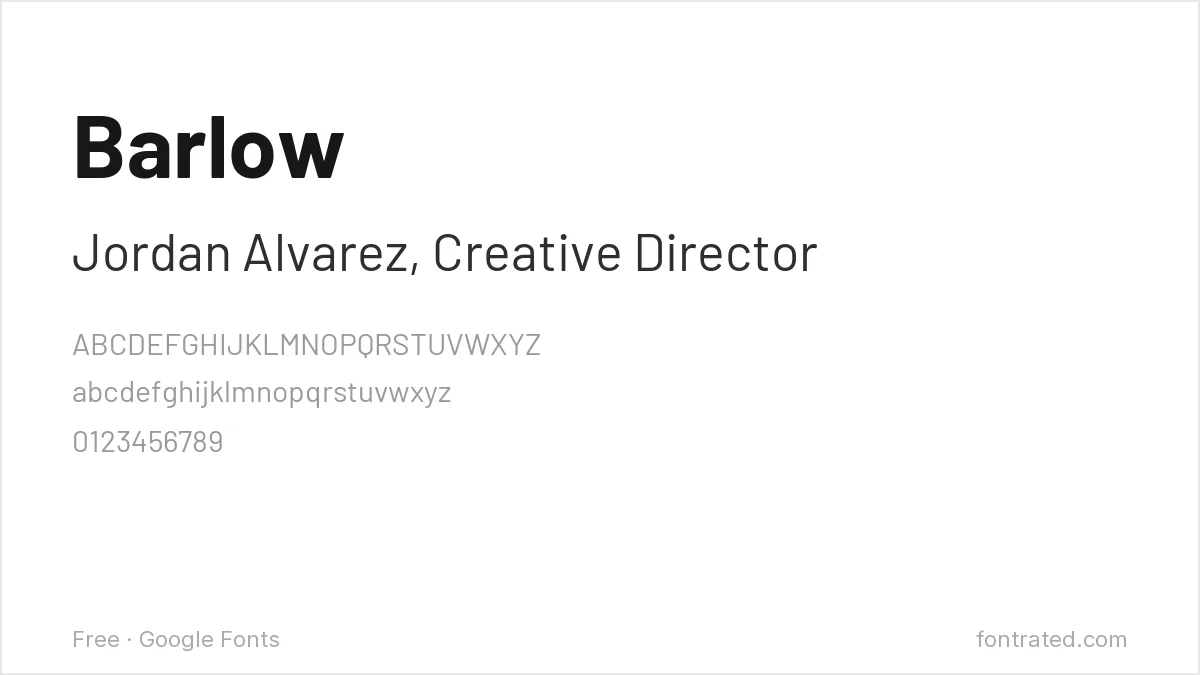
Drawn with the slightly rounded corners and low contrast common to California car-culture signage, Barlow reads as current without any of the quirks that date a typeface — a solid pick for tech and product-focused cards.
Spectral
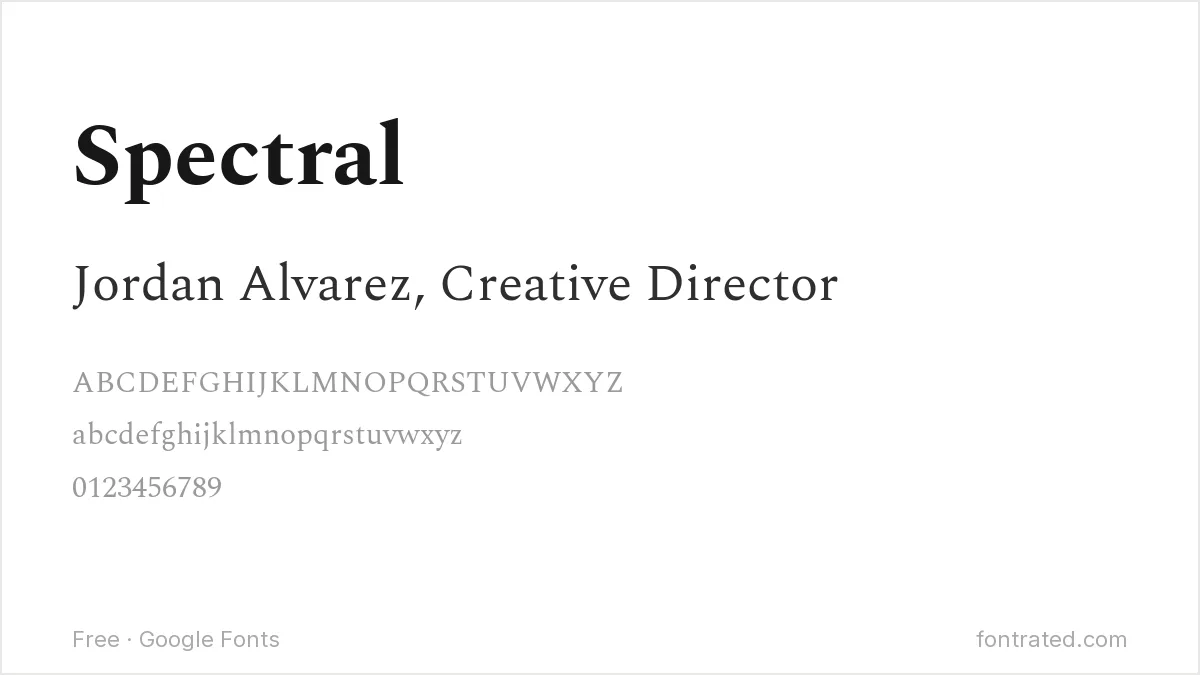
Commissioned specifically for on-screen reading, Spectral brings a serif’s gravitas to a business card without the fragility of a print-only serif at small sizes — a good choice when ‘sans-serif default’ feels too plain.
Nunito Sans
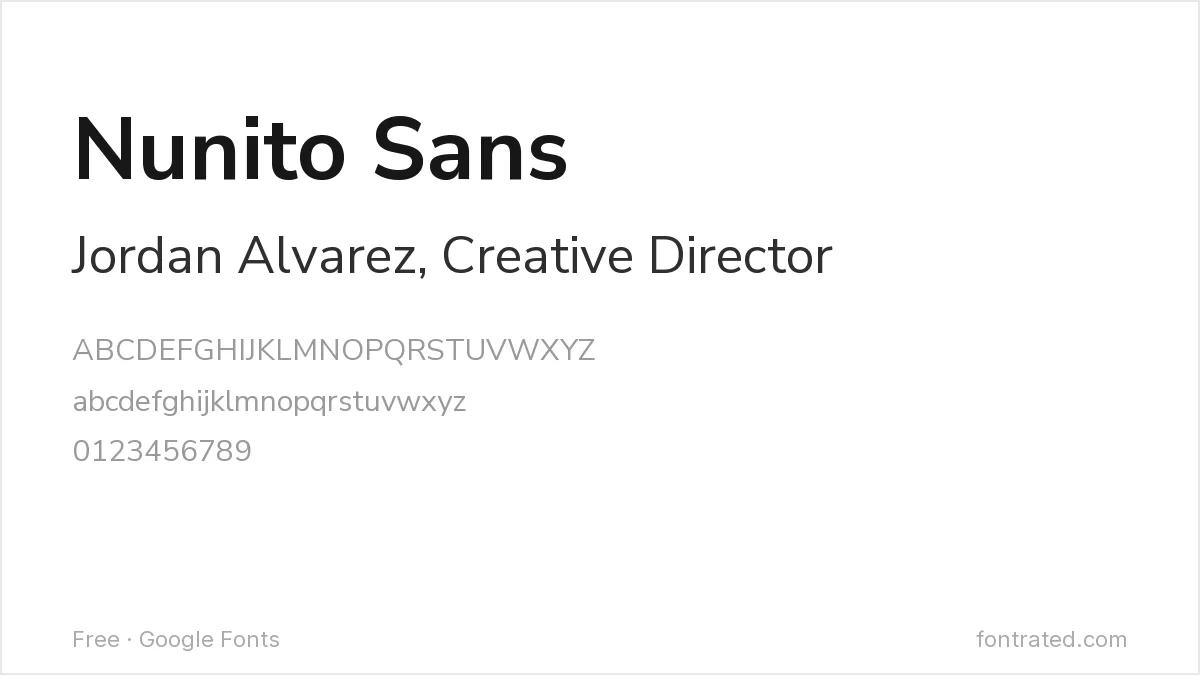
The sans companion to the rounder Nunito, this version straightens out the terminals for a more buttoned-up feel while keeping the warmth that makes Nunito easy to read at a glance.
Cabin
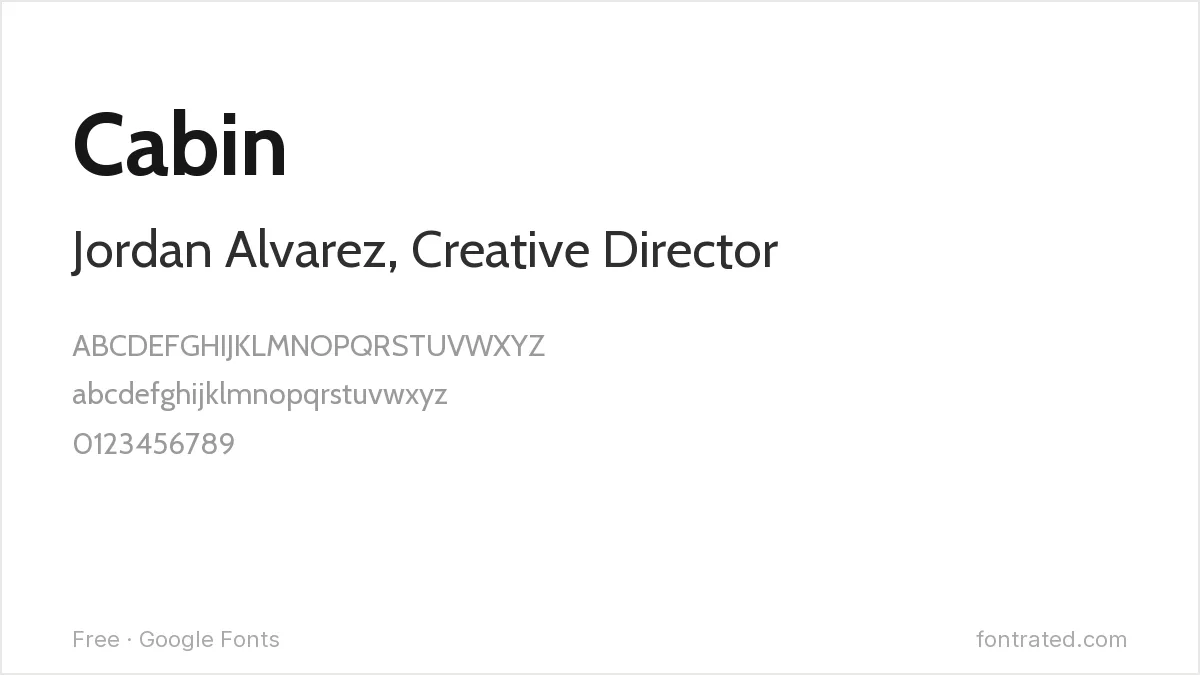
Inspired by Edward Johnston’s and Eric Gill’s classic humanist sans work, Cabin has just enough rounding in its terminals to feel personable — a good fit for consultants, coaches, or anyone whose business is built on approachability.
Manrope
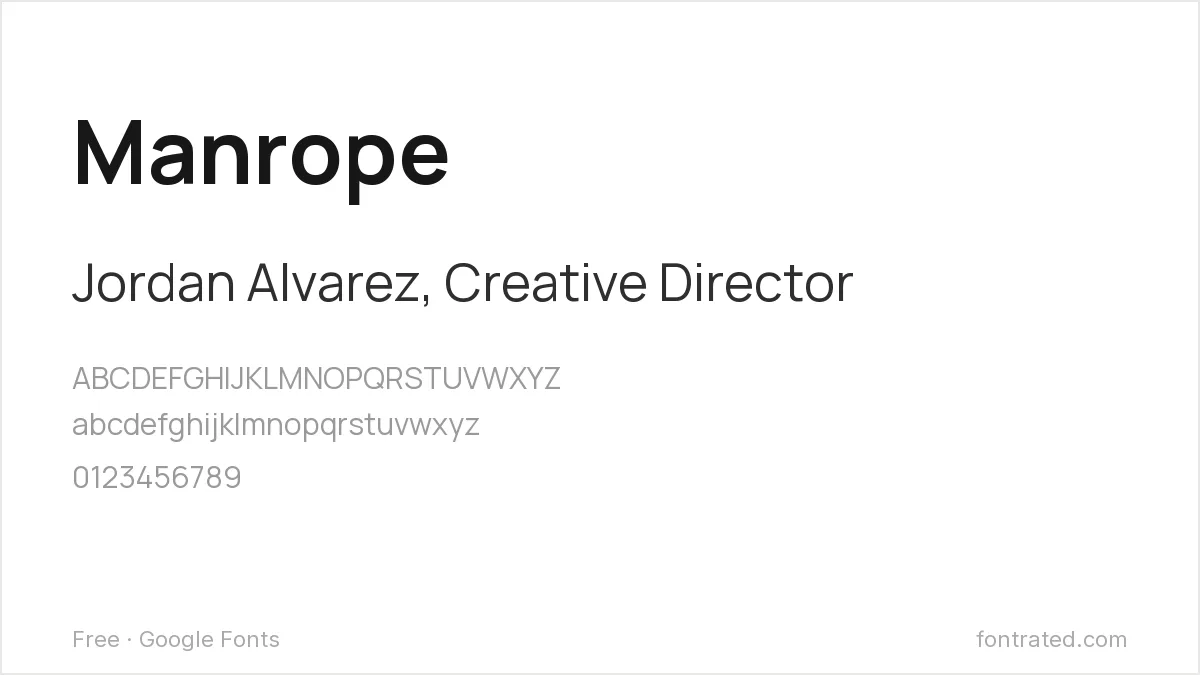
A newer addition to Google Fonts with tight spacing and a slightly geometric skeleton, Manrope has become a default in startup branding — reach for it when a card needs to look current rather than established.
EB Garamond
A digital revival of Claude Garamont’s 16th-century originals, EB Garamond signals exactly the kind of old-money seriousness that a law firm, financial advisor, or luxury brand wants a business card to convey.
Space Grotesk
Adapted from the monospaced Space Mono, Space Grotesk keeps a few of its parent’s unusual details (look at the lowercase “g”) while working as a proportional text face — distinctive enough to signal “designer” without sacrificing legibility.
Mulish
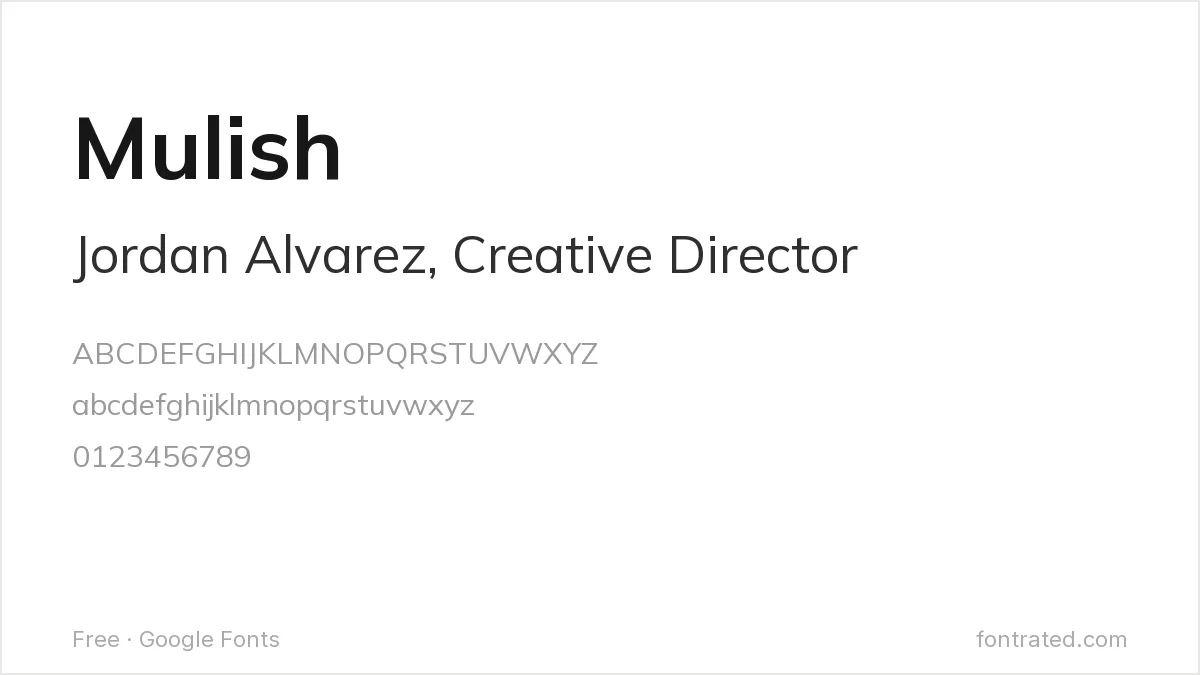
About as neutral as a sans-serif gets, Mulish has almost no distinguishing personality by design — which is exactly the point on a card where the layout and paper stock are doing the talking, not the typeface.
Which one should you actually pick? Libre Franklin or Montserrat cover the widest range of industries safely. Save EB Garamond for when the brand specifically wants to look established, and Space Grotesk for when it wants to look new.
If your brand already uses a specific paid typeface, it may be cheaper to match it than to license it — free alternatives to Calibri and free alternatives to Avenir cover two of the most common corporate faces.
Frequently Asked Questions
What font size should I actually use for a name and title on a business card?